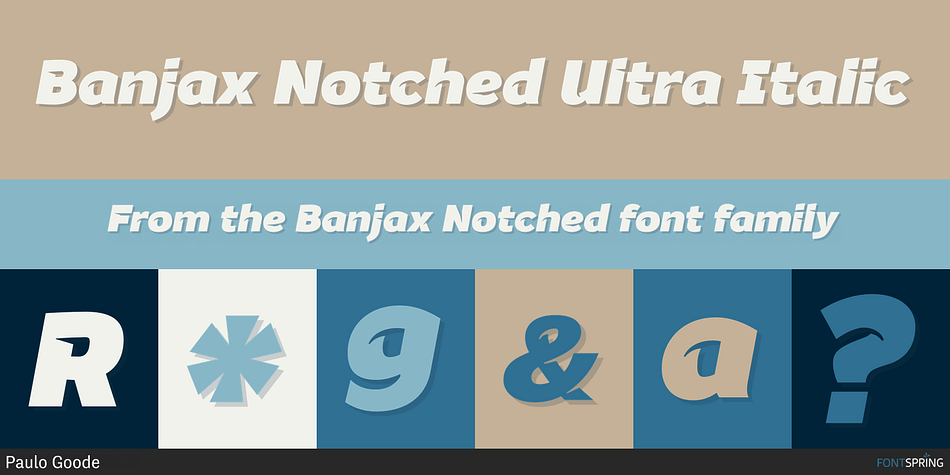
Banjax Notched Ultra Italic
Designed by Paulo Goode, Banjax Notched is a sans serif and display sans font family. This typeface has fourteen styles and was published by Paulo Goode.
Banjax Notched is a dynamically restyled version of the original Banjax humanist sans serif typeface. Banjax Notched is intended for use in titles, headlines, branding and logo designs, whether that be for a book cover, film poster, advertising campaign or sporting events, these fonts will add an extra dimension to your designs. Naturally, Banjax Notched perfectly complements the original Banjax fonts so that you can launch a fully integrated campaign.
Key features:
• 7 weights in Roman and Italic
• Small Caps, Petite Caps and 3 Alternates
• Latin Extended and Basic Greek glyphs
• 1100 glyphs per font.